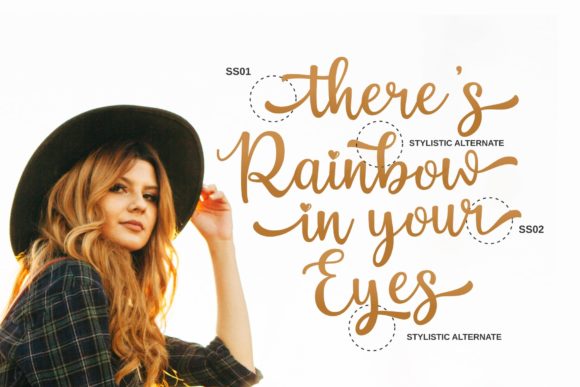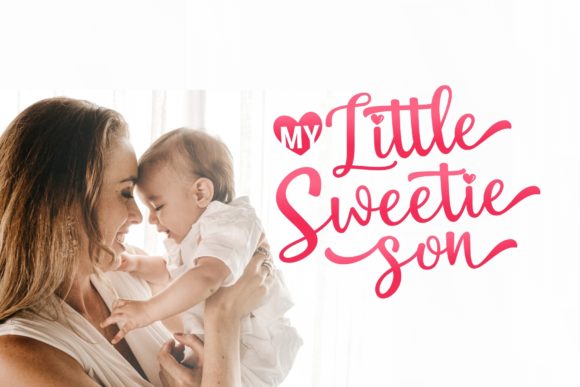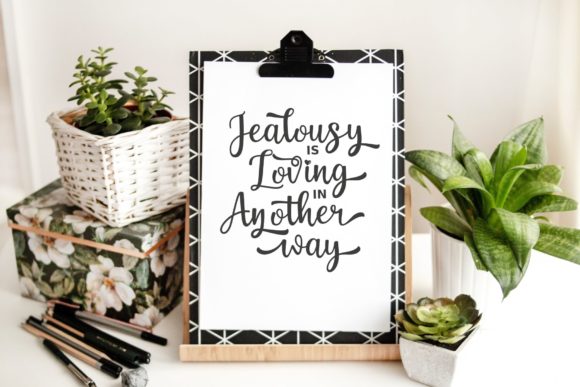
Introduction to Hey Beibeh Font
Have you ever stared at a blank page, struggling to bring your creative idea to life? It’s a feeling we’ve all been there, whether you’re a seasoned designer or just starting out. But what if I told you there’s a secret to making your projects truly shine? Enter the enchanting world of the Hey Beibeh Font, a handwritten font that embodies the perfect blend of fun, romance, and authenticity.
As a valuable resource for designers, the Hey Beibeh Font offers a high-quality solution for any creative project. Whether you’re working on a free download or a paid commission, this font is sure to elevate your design to the next level. With its transparent background and versatility, you can use it to create anything from wedding invitations to social media graphics.
Key Features of Hey Beibeh Font
- High-quality design resource ideal for creative projects requiring a unique and stylish font.
- Transparent background and customizable design elements make it perfect for digital art, graphic design, and web development projects.
- Unique, hand-drawn style with intricate details and bold lines, adding a touch of elegance to any design project.
Honest Review: Hey Beibeh Font
As a designer, I’m always on the lookout for high-quality design resources to elevate my creative projects. The Hey Beibeh Font caught my attention, and I decided to give it a try. Here’s my honest review.
What works well: ✨ The font is incredibly versatile and suitable for a wide range of creative projects. It’s perfect for titles, headings, and even body text. The Hey Beibeh Font also comes in a variety of styles, making it easy to customize to fit your design needs. Plus, it’s a free download, which is a major bonus!
What’s not so great: ⚠️ The font could benefit from more character support, particularly for languages other than English. Additionally, the transparent background can be a bit tricky to work with, especially if you’re not familiar with design software.
Overall, I’m impressed with the Hey Beibeh Font. While it may have some limitations, its versatility and high-quality design make it a valuable addition to any designer’s toolkit. If you’re looking for a reliable design resource, I’d definitely recommend giving it a try.
- Versatile and customizable
Getting the Most Out of Hey Beibeh Font
The Hey Beibeh Font is ideal for use in creative projects such as social media graphics, blog posts, and presentations. Its high-quality design and transparent background make it perfect for use on images with background textures or patterns.